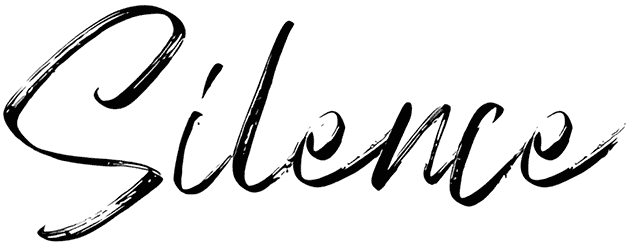
Silence Font
One of the main characteristics of a good script font is that it must be completely cohesive with the content of your work, and on this occasion, an artistic masterpiece such as the Silence can be your reliable assistant.
This brush font can be your main option in the realm of designing flyers, applications, gift cards, stickers, or magazines. Aside from all of its benefits, this artwork can bring a vibe of personalization, vitality, or whimsy to your work.